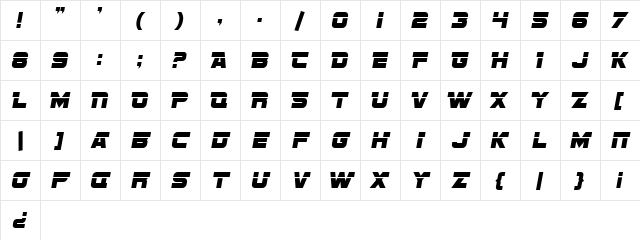
SF Sports Night Alternate Regular
Design Context for SF Sports Night Alternate
SF Sports Night Alternate brings high-energy athletic personality to the page - its confident, muscular forms are built for impact.
Pro Tip: Use SF Sports Night Alternate in all-caps headlines where its athletic energy can fully express itself. Pair with a solid, simple sans for supporting text.